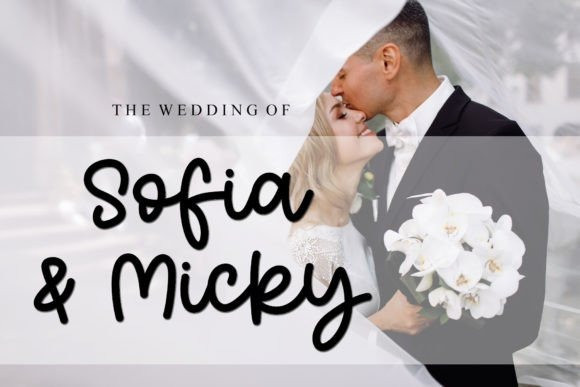
Singer Story Handwriting Font
Singer Story Handwriting Font is a simple, thin lettered, and flowing handwritten font. This adaptable font will look great on a variety of design ideas. It will add a fun and friendly touch to each of your projects!